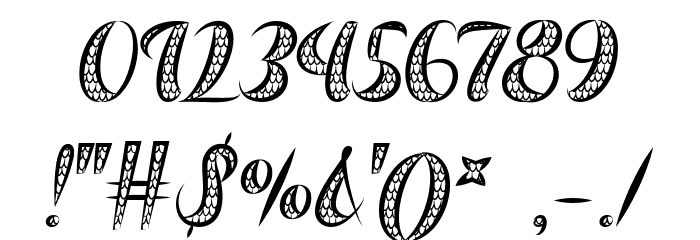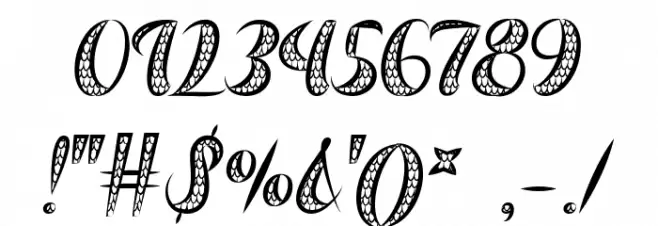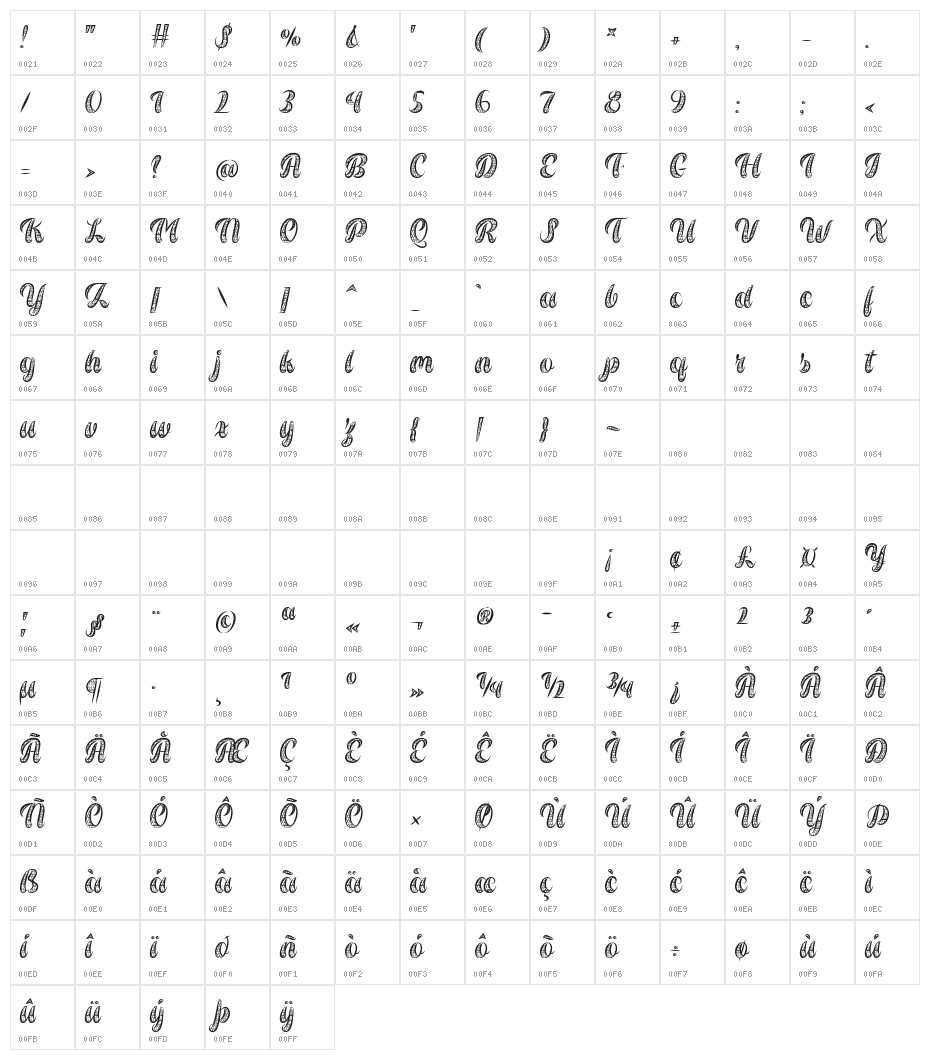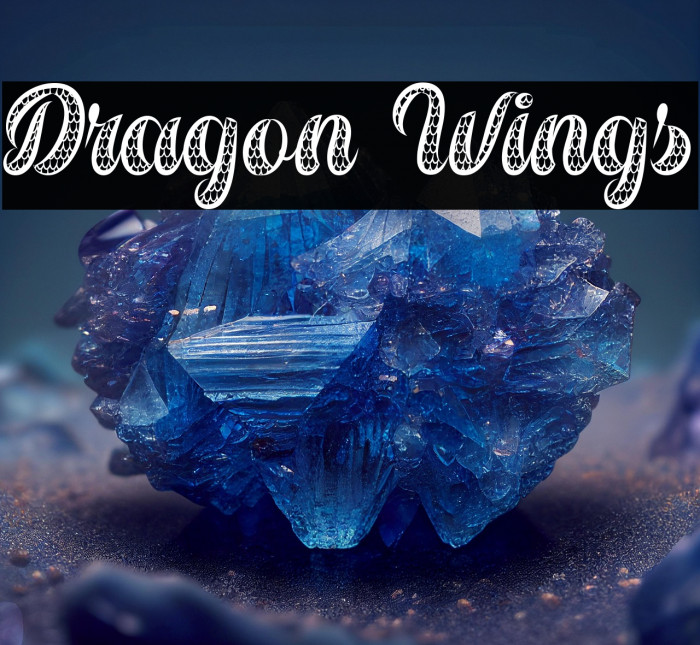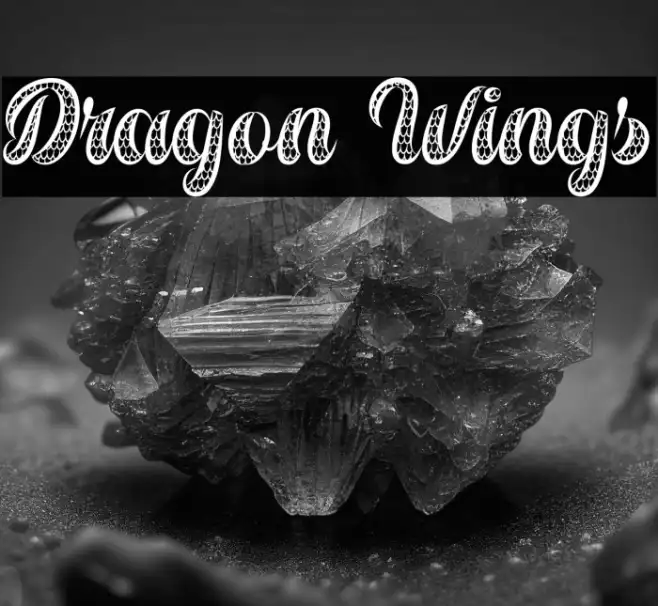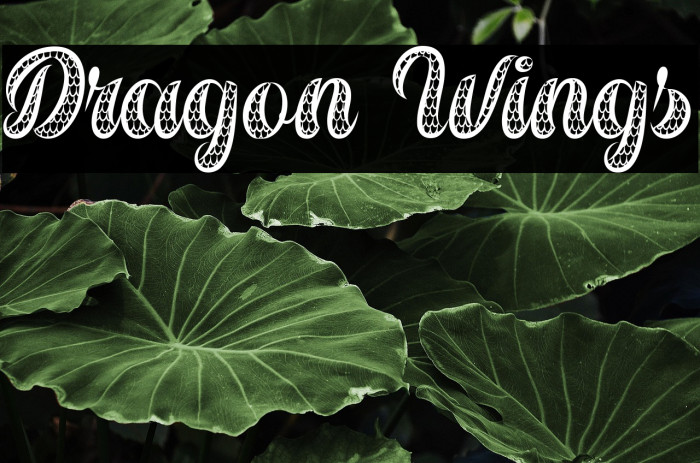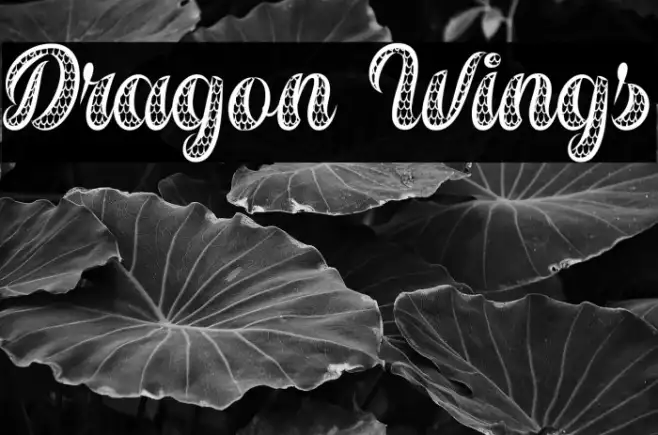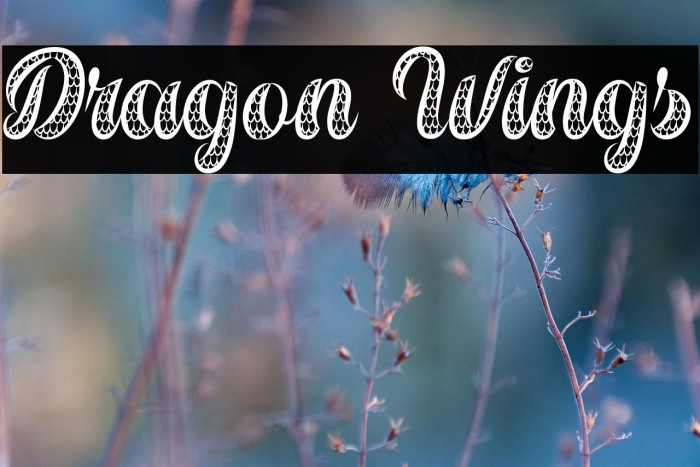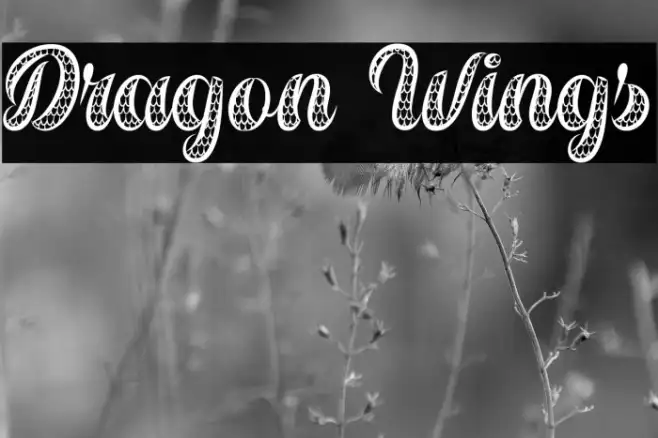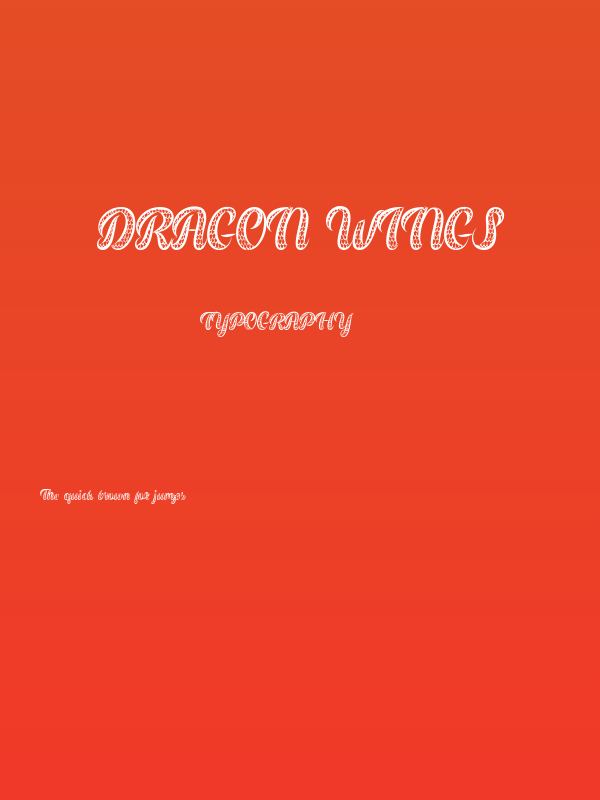
Dragon Wings Font
Dragon Wings Description
This font features a unique and striking design, characterized by its bold, decorative style that mimics the appearance of dragon scales. Each letter is intricately detailed, with a textured pattern that adds depth and visual interest. The font maintains a consistent flow and curvature, giving it a dynamic and whimsical feel. It is highly stylized, making it ideal for projects that require a fantasy or mythical theme. The characters are well-defined, with a medium contrast in stroke thickness, ensuring readability while maintaining its artistic flair.
| Proposed Projects | Ideal for fantasy book covers, themed event invitations, video game graphics, and merchandise branding. |